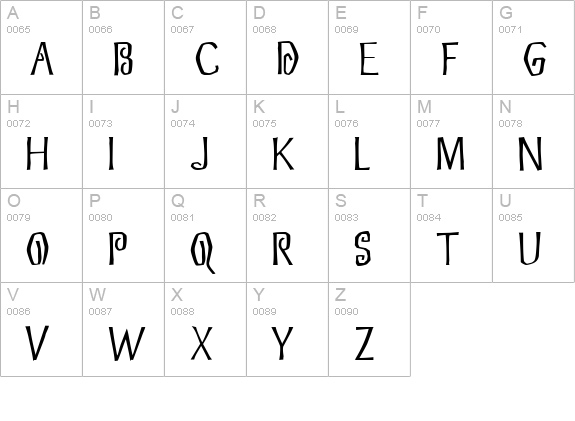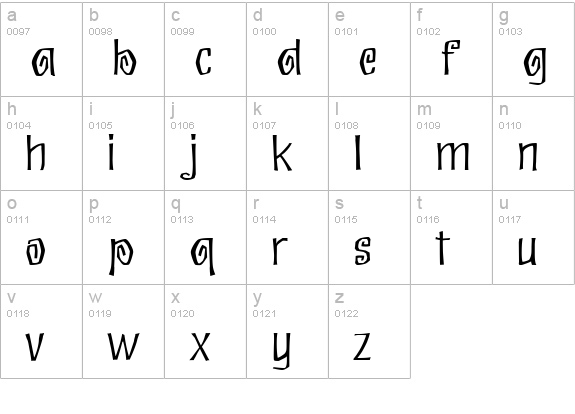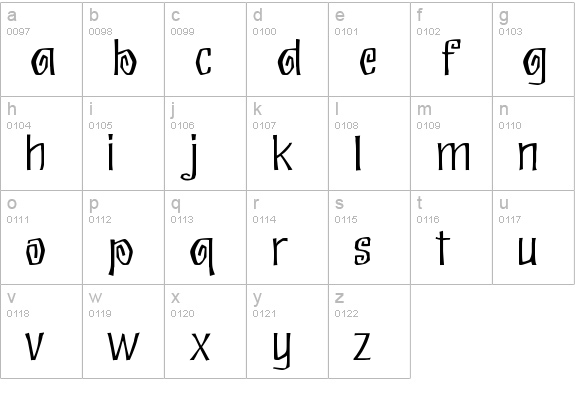
Eskargot Font Details
Eskargot font is a whimsical and elegant typeface that exudes sophistication and charm. With its delicate curves and stylish letterforms, this font is perfect for adding a touch of class to any design project. Whether you're working on a wedding invitation, branding materials, or any other creative endeavor, Eskargot font is sure to make a lasting impression. Best of all, Eskargot font is available for free download at FontsMarket.com. This means you can easily access this beautiful font and start using it in your designs without any cost. Don't miss out on the opportunity to enhance your projects with the timeless beauty of Eskargot font. Download it today and let your creativity shine!